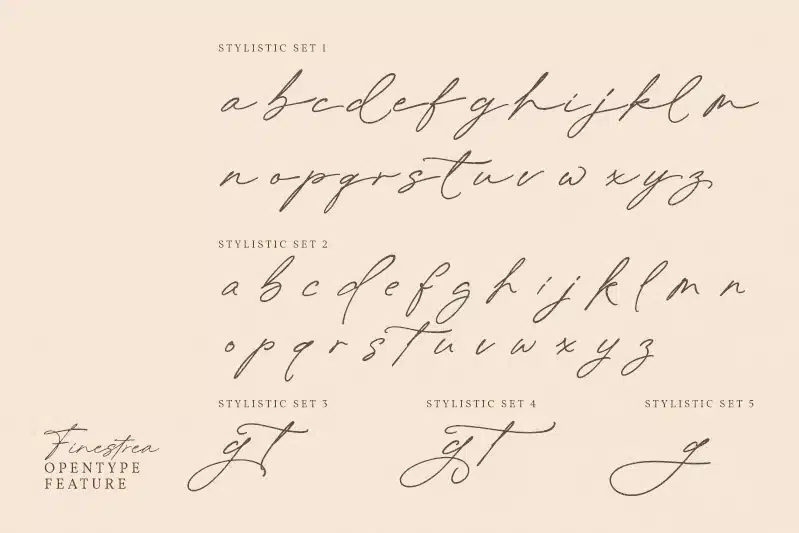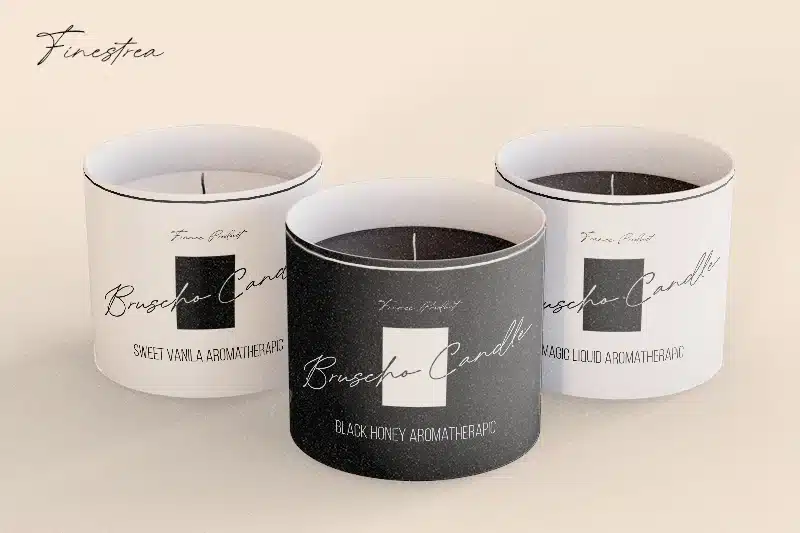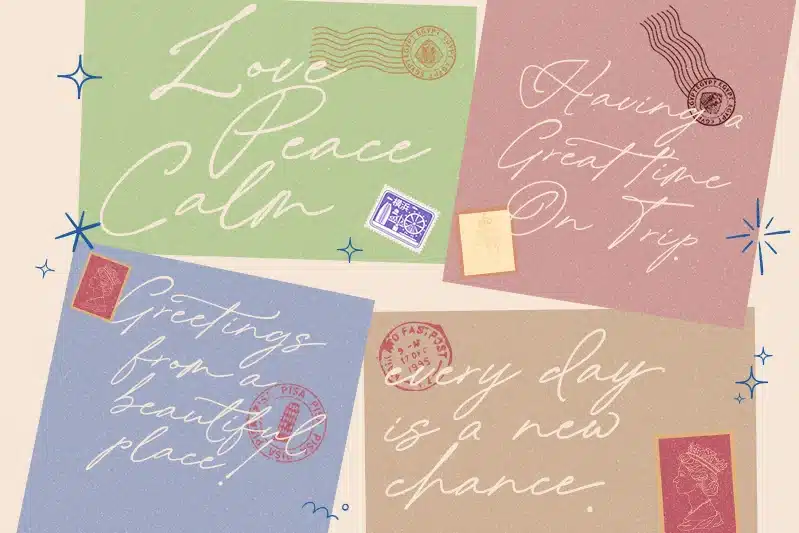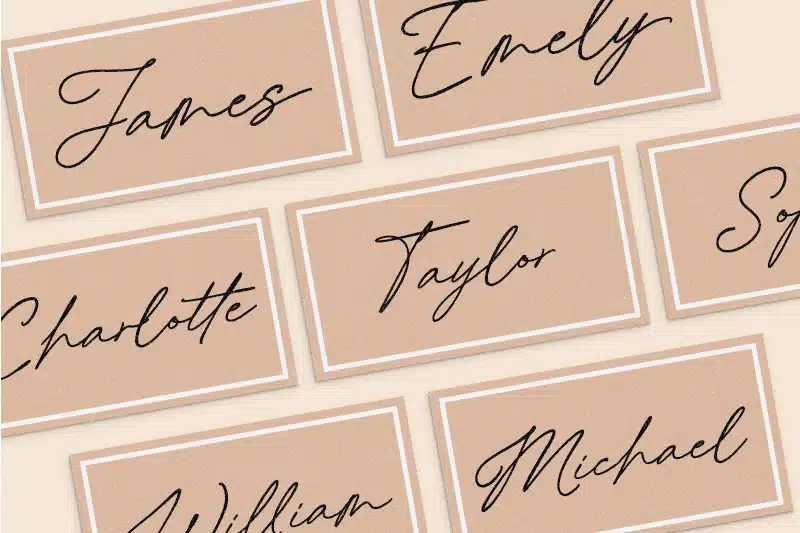
Finestrea – Modern Handwritten Font
Finestrea is a graceful handwritten font. Inspired by contemporary calligraphy trends, this elegant script font delivers a natural writing style that feels both personal and sophisticated. Finestrea is designed with smooth curves, delicate lines, and consistent connections between letters, creating a harmonious and refined look. Every stroke is carefully crafted to mimic the movement of a real pen, resulting in a font that brings authenticity and charm to any design. In addition, enjoy the features here.
- Multilingual Supports
- PUA Encoded
- Numerals and Punctuations
Finestrea fits in logos, invitations, quotes, branding, posters, and many more designs. Find out more ways to use this font by taking a look at the font preview.